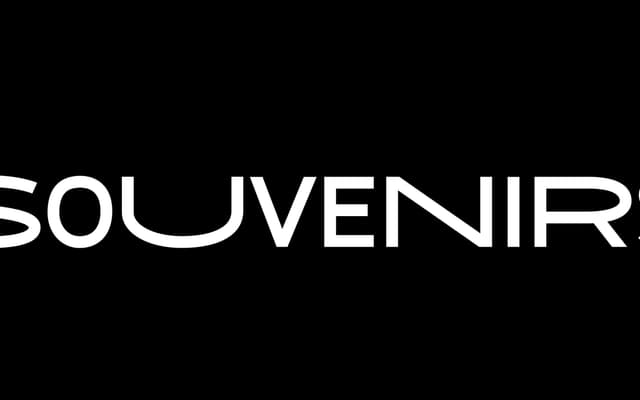
Souvenirs
A display typeface offering switchable extended and semi-condensed glyphs so designers can mix width variants within a single setting.
Each character is available in both extended and semi-condensed forms, allowing custom combinations that vary rhythm and density across a word or headline. The approach gives a single-weight purchase a degree of expressive range usually reserved for multi-width families. Suited to editorial headlines, poster work and branding where optical contrast within a word is the point.
Marketed explicitly as a display typeface with extended and semi-condensed glyph variants, suggesting decorative intent over text use.